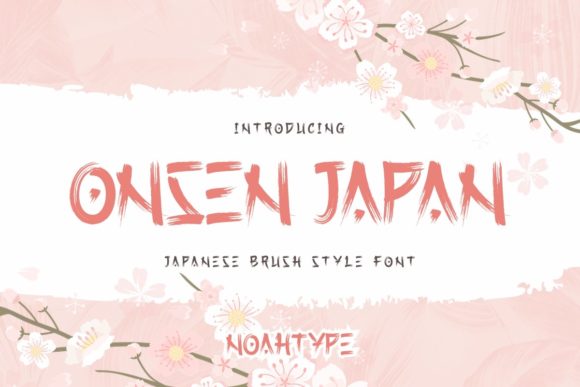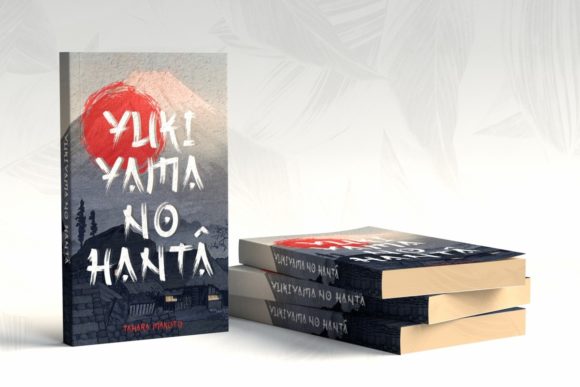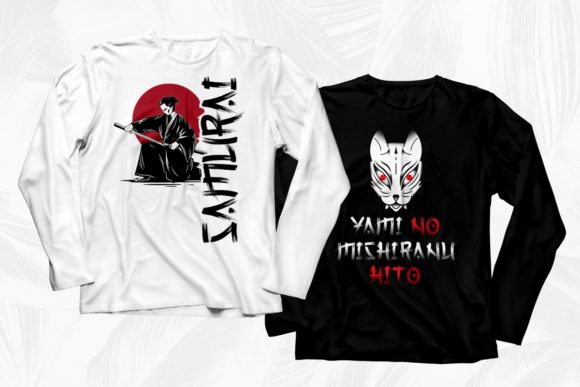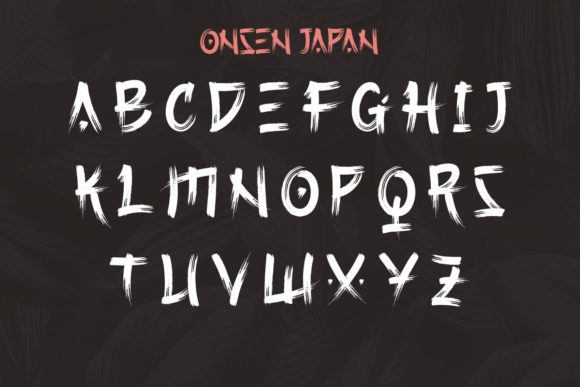
Onsen Japan Font: A Unique Display Font for Bold Branding & Social Media
About the Onsen Japan Font
The Onsen Japan Font is here to transform your projects with its distinctive character and style. Onsen Japan is a cool, brushed and Japanese inspired display font. Authentic and fresh, this font will become one of your favorite choices for menus, posters, logos and branding. Use your imagination and explore this wonderful font.
Onsen Japan excels as a display font for headlines, logos, and short impactful text in branding materials and posters. Its unique texture works particularly well for projects with a focus on Japanese aesthetics, spa culture, or natural products. Avoid using it for body text or long paragraphs; its stylistic brushstrokes would hinder readability in extended use.
For a sophisticated pairing, consider combining Onsen Japan with a clean sans-serif like Futura or a minimalist serif such as Garamond. A playful contrast can be achieved by pairing it with a rounded geometric sans-serif like Circle. The overall personality of Onsen Japan is sophisticated yet approachable; it conveys a sense of calm and authenticity.
This font’s brushed texture lends itself best to projects needing a touch of hand-crafted elegance. It’s ideal for brands emphasizing natural, premium, or authentic experiences.